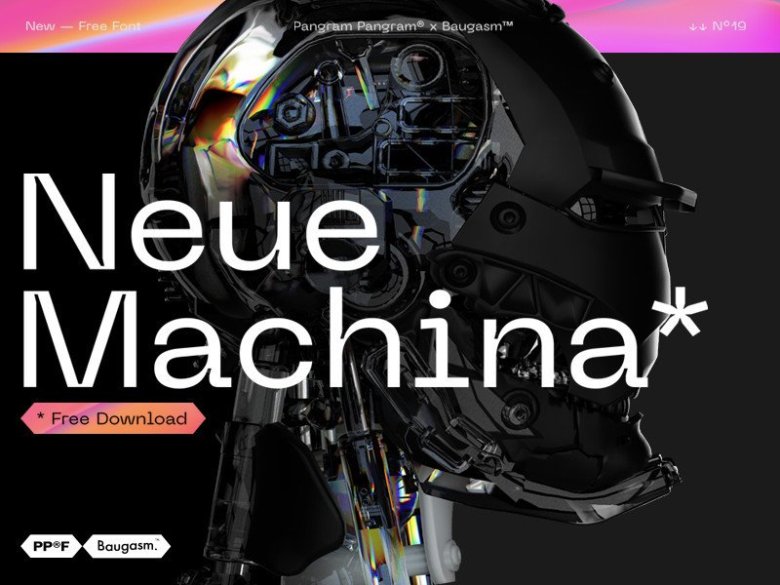
Neue Machina Font Family
Dear All. This is a mechanical, geometric sans serif typeface with display swashed characters and soft rounded endings that provide a trong but refined aesthetic. Introducing Neue Machina Font. It’s designed and shared by Vasjen Katro.
It’s a typeface designed in collaboration with Pangram Pangram. It’s a powerful and meticulously crafted typeface boasting monospace/geometric type features as well as apparent and deep ink traps in its heavier weights.
It is inspired by the aesthetics of robotics and machines — a font suited for the future of technology. It’s perfect to enhance any creative purpose: headlines, titles, poster, website, social media profiles and even branding.